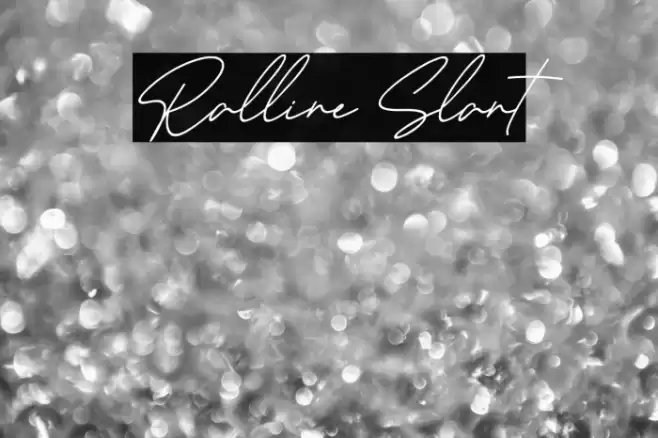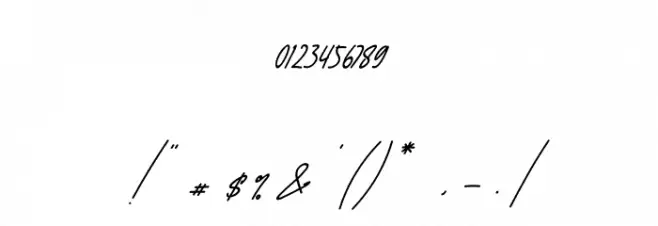
Ralline Slant Font
Ralline Slant Description
This font features an elegant, flowing script style with a distinct slant, giving it a dynamic and sophisticated appearance. The letters are interconnected, mimicking the fluidity of natural handwriting. The uppercase letters are bold and prominent, while the lowercase letters maintain a delicate and graceful form. The numerals and special characters are designed to complement the overall script style, maintaining the same slanted and cursive characteristics. This font is ideal for projects that require a personal touch or a sense of elegance and refinement.
A slanted, elegant script font with interconnected letters and a handwritten feel from Regular fonts.
- Proposed Projects: Ideal for wedding invitations, greeting cards, branding, and logo design where a personal and elegant touch is desired.
- Character Spacing: Tight
- Overall Style: Elegant, Handwritten
- Use Case: Logos, Invitations, Personal Correspondence